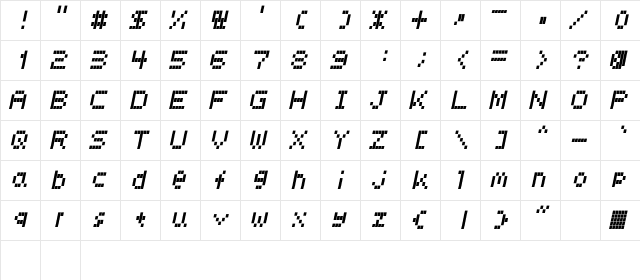
LCD Italic Font Preview
LCD Italic
LCD Italic Font Details
Design Context for LCD Typeface
LCD takes a measured approach to typography — its balanced proportions and neutral character make it a reliable workhorse for both digital and print work. Its italic angle brings a sense of urgency and motion to the letterforms.
Pro Tip: Try LCD for annotation and caption copy alongside an upright companion — the contrast in angle creates a dynamic but ordered typographic system.